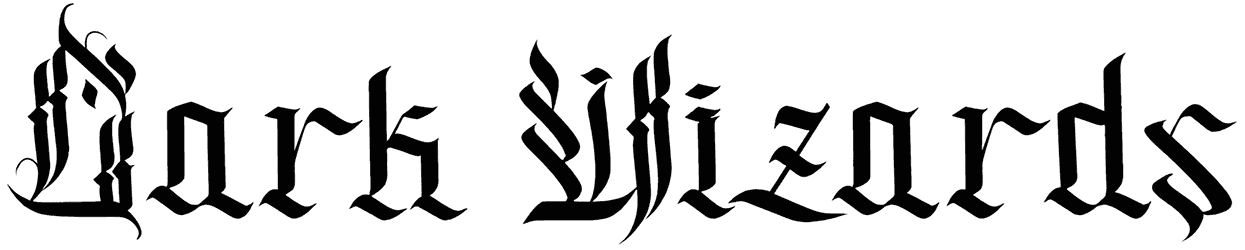
Dark Wizards Font
What can be more memorable than a design with classic and medieval terms? As a black letter font, Dark Wizards with a decorative face is incredibly enlightening for your fantasies, including greeting cards, invitations, signs, album covers, and much more.